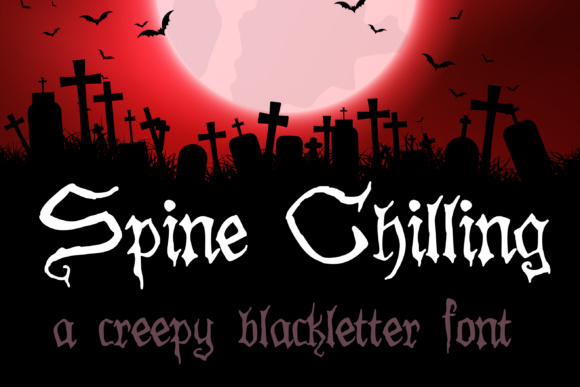
Journey into the realm of the Spine Chilling Font—a haunting and captivating blackletter creation from the depths of Illustration Ink's imagination. This font is not for the faint of heart; its intricate glyphs dance like shadows in the moonlight, evoking an eerie atmosphere that will send shivers down your spine.
Crafted with meticulous attention to detail, the Spine Chilling Font possesses an undeniable charm that captivates the senses. Each letter, each stroke, and each curve has been carefully designed to evoke a sense of mystery and intrigue. As you gaze upon its macabre beauty, you'll feel as if you've stepped into a world of dark enchantment, where secrets whisper in the wind.
Whether you're a designer seeking to unleash your creativity or an individual seeking a unique and expressive font, the Spine Chilling Font answers your call. Its versatility extends from haunting Halloween designs and chilling horror posters to captivating book covers and eye-catching logos. Let your imagination run wild as you explore the endless possibilities that await.